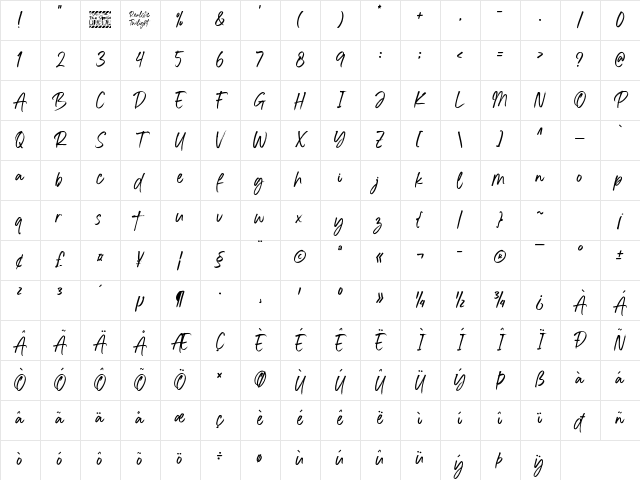
Complete Realistic Twilight Personal Use Regular glyph index. Displaying only characters natively supported by Realistic Twilight Personal Use Regular font.
Realistic Twilight Personal Use is a composed and adaptable typeface that performs quietly and consistently across a wide range of design contexts. Its slender proportions lend an understated elegance to any composition.